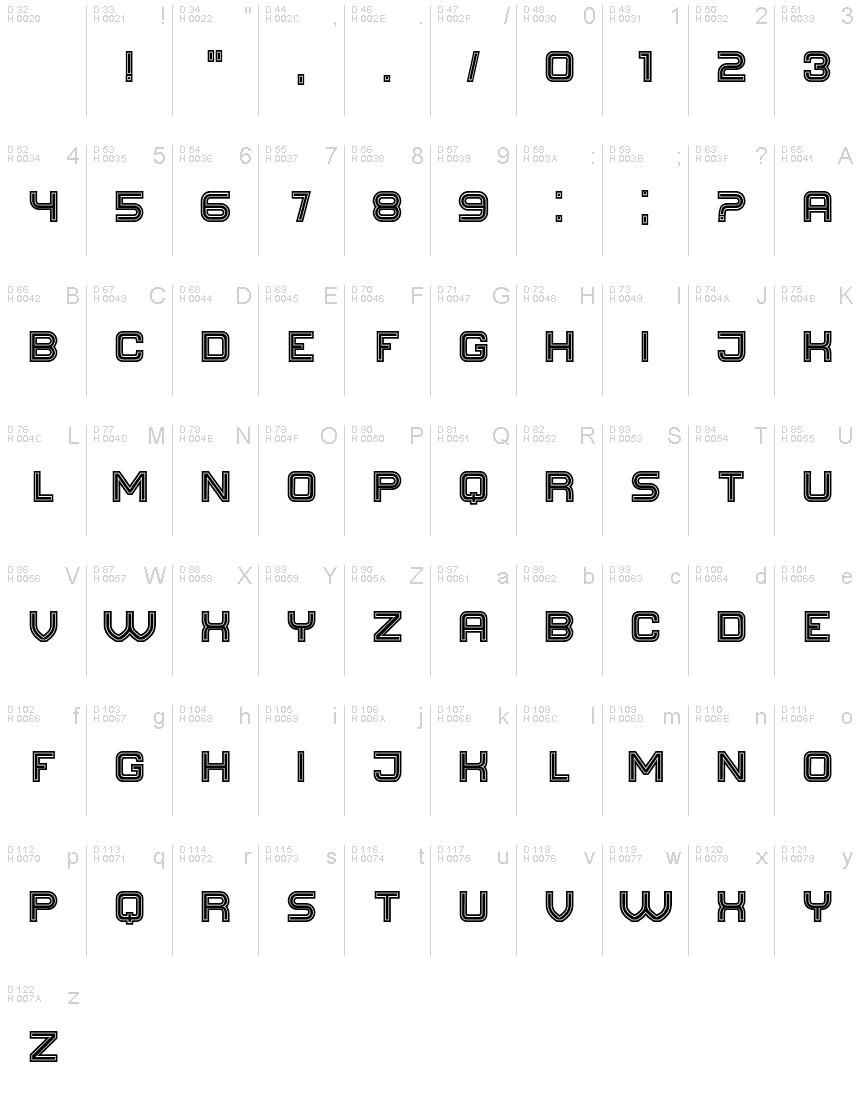
Athletic Shirt, designed by Vladimir Nikolic, is a sans serif font that boasts an expanded width, giving it a bold and commanding presence. Its thick lines and solid structure evoke the robustness of sports and team spirit. The striking contrast within the typeface's design enhances its readability while simultaneously adding a modern flair.
This font's powerful aesthetic makes it particularly suitable for sports jerseys, event posters, and any creative project aiming to convey strength and dynamism. Athletic Shirt's expanded characters not only stand out in large displays but also retain clarity when scaled down, offering versatility across various mediums.
The substantial letterforms of Athletic Shirt paired with its clean sans serif nature allow for impactful messaging that is both contemporary and timeless. Whether used in digital media or print, this font is designed to capture attention and leave a lasting impression.